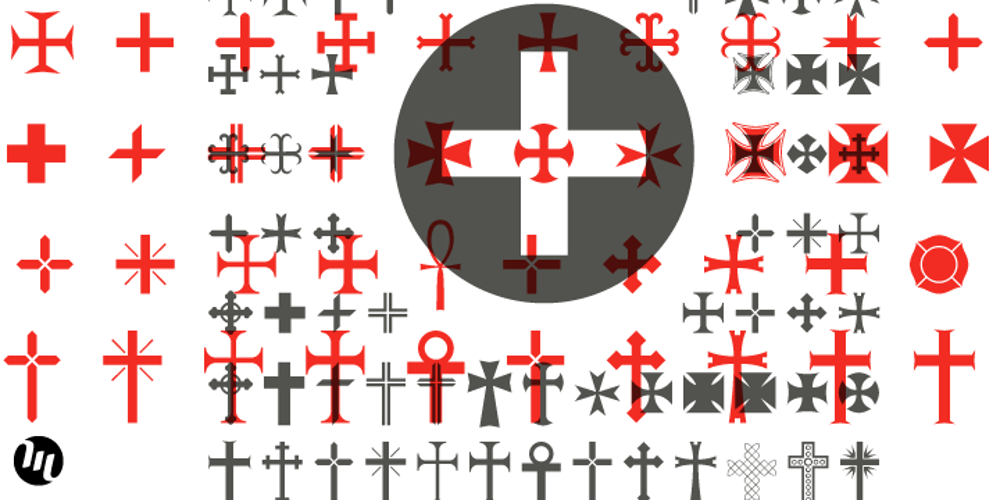
Ironside Crosses Font Family was designed by Matthew Aaron Desmond and published by MADType. Ironside Crosses contains 1 styles and family package options. The Cross has a rich history and various meanings in many different cultures around the Globe. This font contains 178 cross symbols. Most of the designs have both a rectangular and square version.)